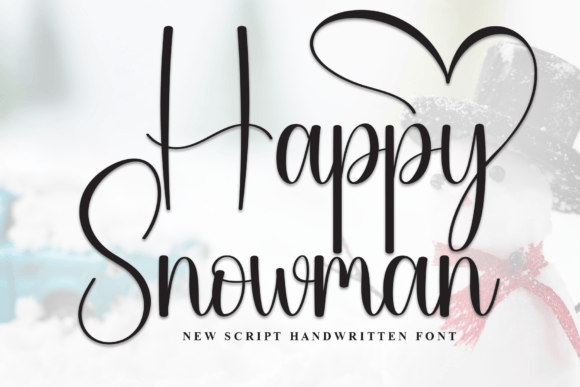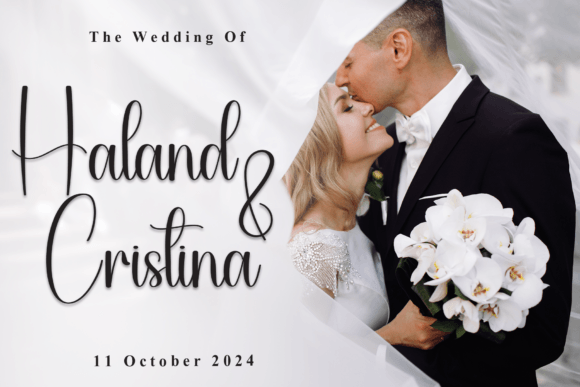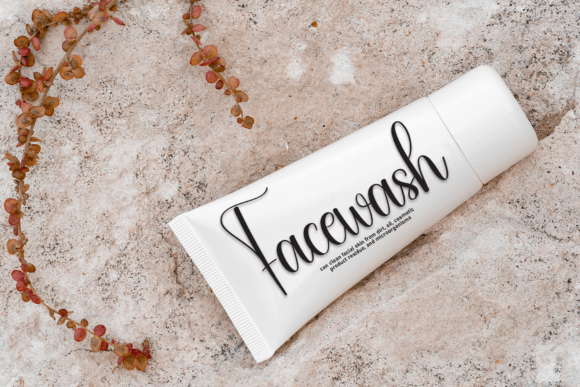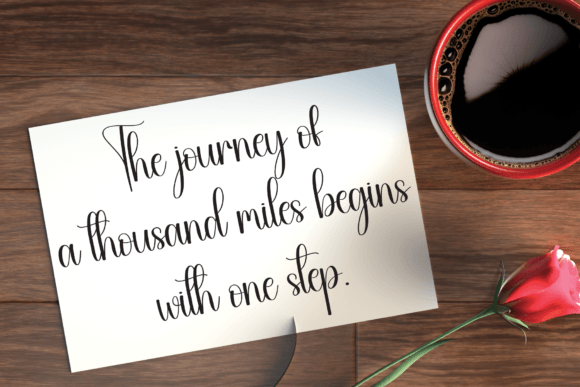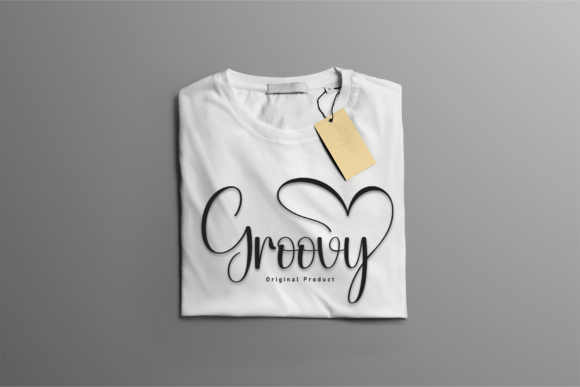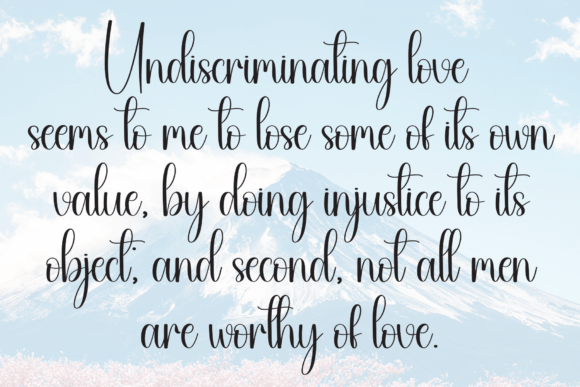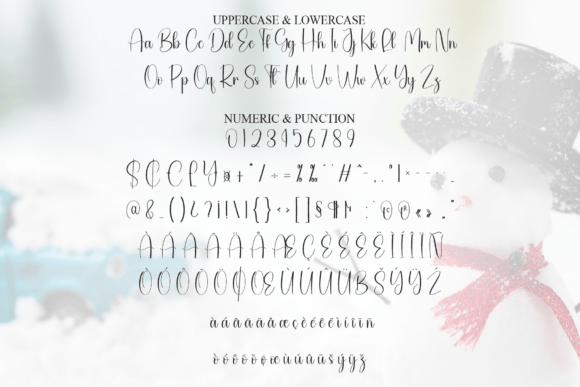
Unwrapping the Magic of the Happy Snowman Font
Have you ever been brainstorming ideas for a project and suddenly, a spark of inspiration hits you? Maybe it’s a childhood memory, a favorite color, or a quirky illustration that sets the tone for your design. For me, it’s often a font that sparks the creative process. And today, I’m excited to introduce you to a font that embodies the warmth and joy of the holiday season: the Happy Snowman Font.
This delightful script font is designed to bring a smile to your face and a touch of whimsy to your designs. With its smooth, flowing letters and charming heart-shaped tails, the Happy Snowman Font is perfect for creating fun and cheerful projects. Whether you’re designing holiday cards, party invitations, or social media graphics, this font is sure to add a playful touch to your work. As a designer, you’ll appreciate the Happy Snowman Font’s versatility and charm, making it a valuable addition to your font collection.
- Unique Characteristics: Whimsical and playful design, perfect for winter-themed projects and children’s content
- Font Style: Script, Handwritten, and Casual styles available for added variety and expressiveness
Happy Snowman Font Review
Overall, I think the Happy Snowman Font is a cute and playful choice for winter-themed designs. It’s ✨ fun and bubbly, making it perfect for projects that need a cheerful vibe.
- ✨ Unique and whimsical design that’s sure to grab attention
- ✨ Perfect for winter, holiday, or Christmas-themed projects
- ✨ Works well for headings, titles, and short text
- ⚠️ Limited character set and language support
- ⚠️ May not be suitable for long blocks of text or body copy
- ⚠️ Some characters may not render well in certain font sizes or styles
In conclusion, the Happy Snowman Font is a great choice for projects that need a fun and playful touch. While it has its limitations, it’s still a great addition to any designer’s toolkit. Just be sure to use it sparingly and in the right context to get the most out of it.
For a more festive look, pair Happy Snowman with snowflake or holly patterns.
For a more polished look, use Happy Snowman in combination with bold lines and bright colors.
For a more festive look, pair Happy Snowman with snowflake or holly graphics.
Happy Snowman Font is perfect for winter-themed projects, such as holiday cards, invitations, and decorations. It’s also great for children’s books, nursery decor, and party decorations.
Remember to pair Happy Snowman with bold lines and bright colors for a more polished look.
Creative Projects with Happy Snowman Font
Create a festive winter invitation using the Happy Snowman Font to set the tone for a magical winter wonderland theme. The font’s playful and cheerful design will match perfectly with snowflakes, holly, and other winter elements.